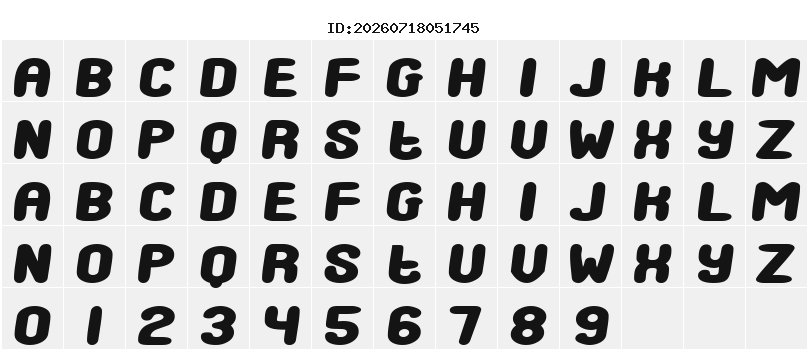
Chocolate Preview
• Font Name: Chocolate
• Full Font Name: Chocolate
• PostScript Name: Chocolate
About Chocolate.ttf
Chocolate.ttf is a modern, elegant sans-serif font designed for ultimate readability and visual harmony. Perfect for branding, headlines, web design, and print materials.